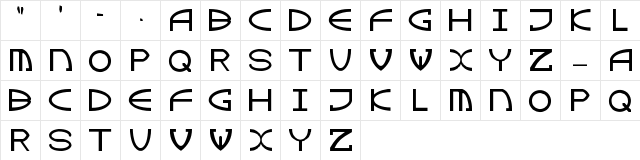
New Regular
| Foundry | Christopher Gamble |
| Designer | Christopher Gamble |
Design Context for New Typeface
New offers clean, dependable letterforms without strong stylistic allegiance, making it a practical choice for designers who need flexibility.